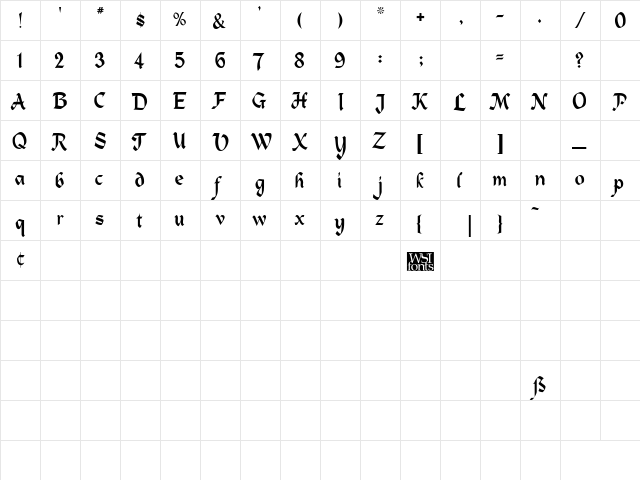
HelgarChancery Regular
Design Context for HelgarChancery Typeface
HelgarChancery is a composed and adaptable typeface that performs quietly and consistently across a wide range of design contexts.